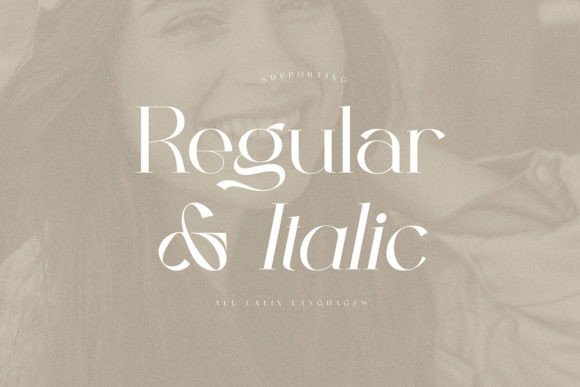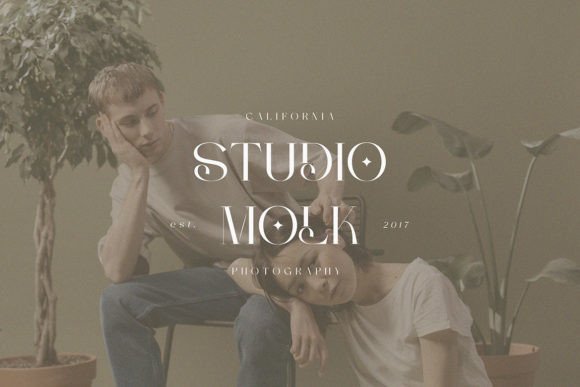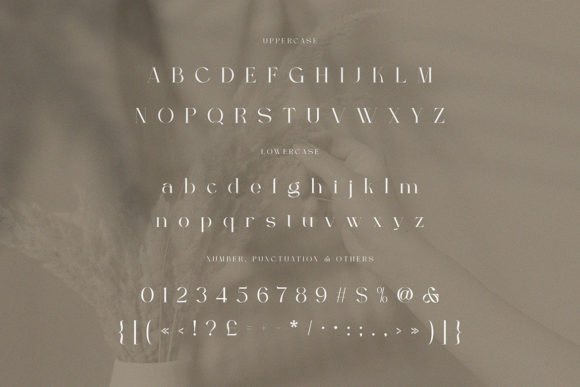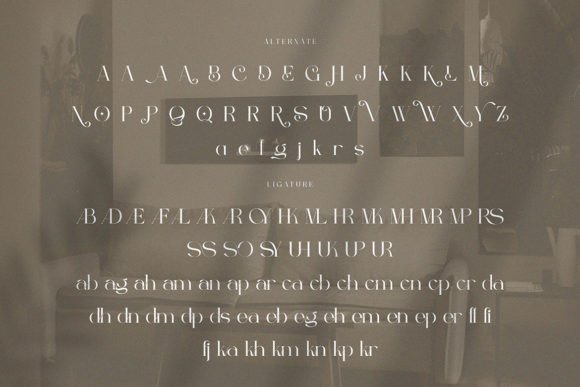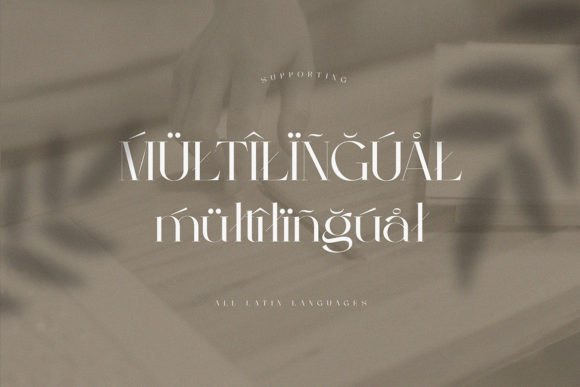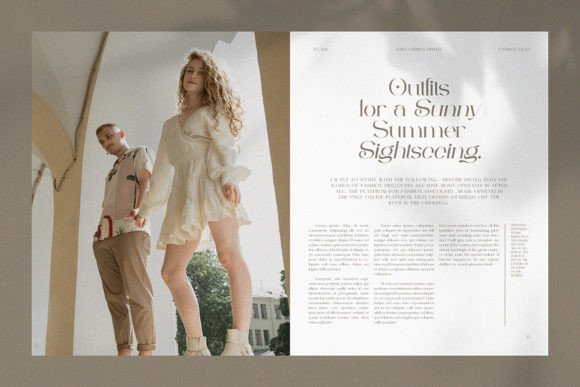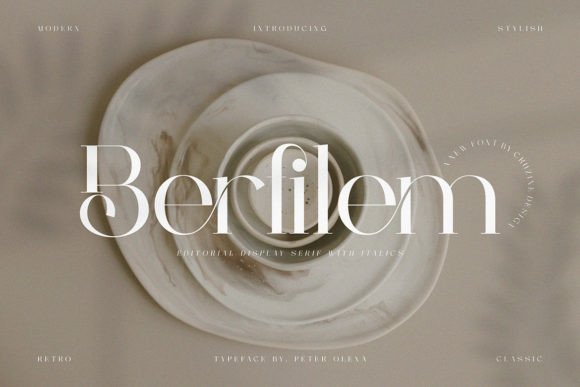
Introducing Berfilem: The Ultimate Serif Font for Modern Designers
In the world of typography, a good font can make all the difference in elevating a design project from ordinary to extraordinary. For designers and crafters looking for a font that exudes sophistication, elegance, and a touch of modernity, look no further than Berfilem. This latest serif font is taking the design world by storm with its clean lines, stylish aesthetic, and versatility.
The Story Behind Berfilem
Berfilem is more than just a font – it’s a design statement. Crafted with precision and a deep understanding of modern design trends, Berfilem brings a fresh perspective to the traditional serif font family. Its design is inspired by the need for a font that is both trendy and timeless, making it perfect for a wide range of design projects, from branding and editorial design to packaging and advertising.
Key Features of Berfilem
- Clean Lines and Modern Aesthetic: Berfilem boasts clean, crisp lines that give it a modern edge while maintaining the classic feel of serif fonts. This combination makes it stand out in any design.
- PUA Encoding for Effortless Design: Berfilem is PUA (Private Use Area) encoded, which means that accessing all glyphs and swashes is a breeze. This feature is particularly useful for designers who want to add a personal touch to their work without the hassle of complicated font management.
- Trendy and Stylish: Berfilem is designed to be at the forefront of font trends. Its stylish appearance makes it perfect for designers looking to give their projects a contemporary look and feel.
- Versatile and Adaptable: Whether you’re working on a branding project, an editorial piece, or any other design that requires a touch of sophistication, Berfilem adapts seamlessly. Its versatility is one of its strongest assets, making it a valuable addition to any designer’s font library.
Applications of Berfilem
Berfilem’s versatility means it can be used in a variety of design projects. Here are some of the ideal applications for this stylish serif font:
- Branding: Create a lasting impression with Berfilem. Its elegant and modern design makes it perfect for logos, business cards, and brand guidelines.
- Editorial Design: Elevate your publications with Berfilem. It’s ideal for magazines, newspapers, books, and any other editorial content that requires a sophisticated look.
- Digital Media: From website headers to social media graphics, Berfilem brings a level of class and professionalism to digital content.
- Packaging and Advertising: Make your products stand out on the shelves and grab attention with Berfilem’s stylish and modern aesthetic.
Why Choose Berfilem?
In a sea of fonts, Berfilem stands out for several reasons:
- Unique yet Legible: Berfilem offers a unique design without compromising on legibility. This balance is crucial for ensuring that your message is conveyed effectively.
- Easy to Use: Thanks to its PUA encoding, designers can easily access and use the font’s features, making the design process smoother and more efficient.
- Support for Creative Projects: Berfilem is not just a font; it’s a tool for creativity. It’s designed to inspire and support designers in creating stunning visual content.
Berfilem is more than just a serif font – it’s a design solution for the modern creative. Its blend of elegance, modernity, and versatility makes it an invaluable asset for designers looking to elevate their projects. With Berfilem, you can add a touch of sophistication and class to any design, making it perfect for a wide range of applications. Whether you’re working on a branding project, an editorial piece, or anything in between, Berfilem is sure to exceed your expectations.